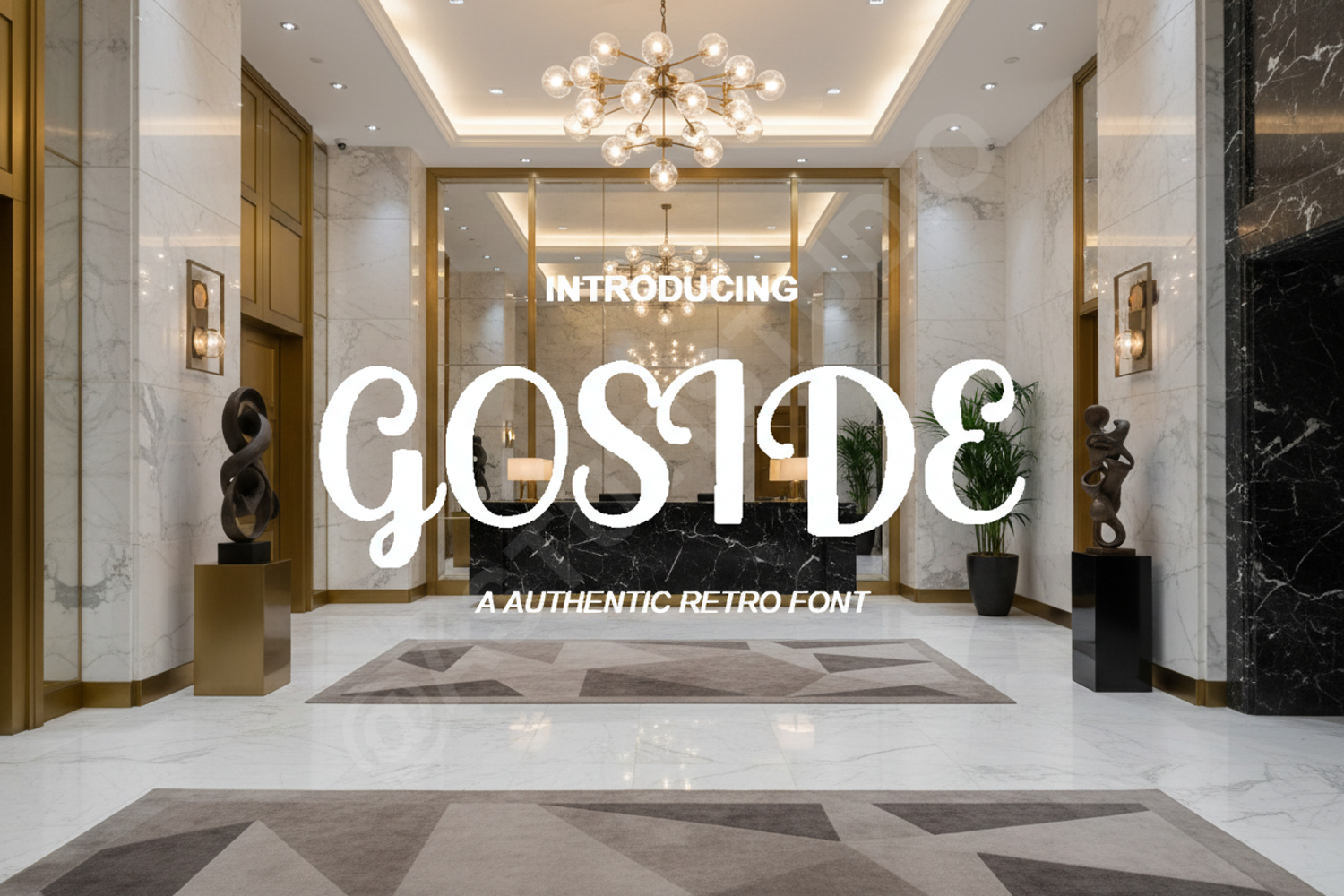
Goside | Elegant Modern Serif Typeface
Goside
Elevate your creative projects with Goside, a premium modern serif font designed for sophistication and impact. Goside strikes a perfect balance between timeless elegance and contemporary design, making it a versatile choice for designers seeking a high-end aesthetic. Its clean lines and unique character shapes ensure your work stands out with professional clarity and style.
Goside is meticulously crafted for a wide range of high-end applications, including:
- Professional Branding and Identity Systems
- Elegant Wedding Stationery and Invitations
- Editorial Layouts and Magazine Headings
- Luxury Product Packaging and Labels
- Minimalist Logo Design
- Social Media Graphics and Inspirational Quotes
- Website Headers and Digital Content